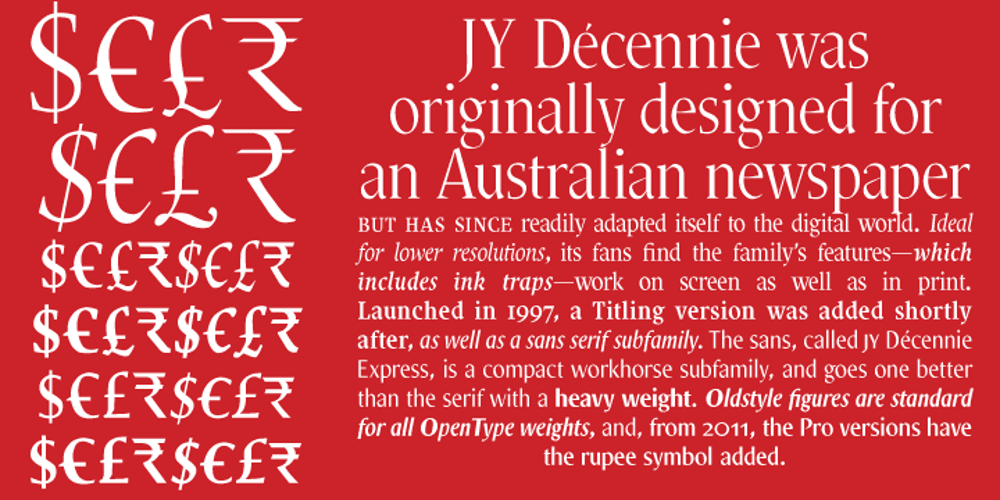
Decennie JY Pro
Decennie JY Pro font
Decennie JY Pro Font Family was designed by Jack Yan and published by JY&A. Decennie JY Pro contains 4 styles and family package options. JY Décennie has been designed for both the web and print. Essentially applying the principles of newspaper typefaces, attention has been paid to the Windows versions of the family to ensure clarity when used in web browsers. It was originally conceived with an Australian broadsheet newspaper in mind, and ultimately launched to commemorate JY&A’s 10th anniversary. The design itself is based on Australian and New Zealand wood type, which was used widely by European settlers during the nineteenth century.